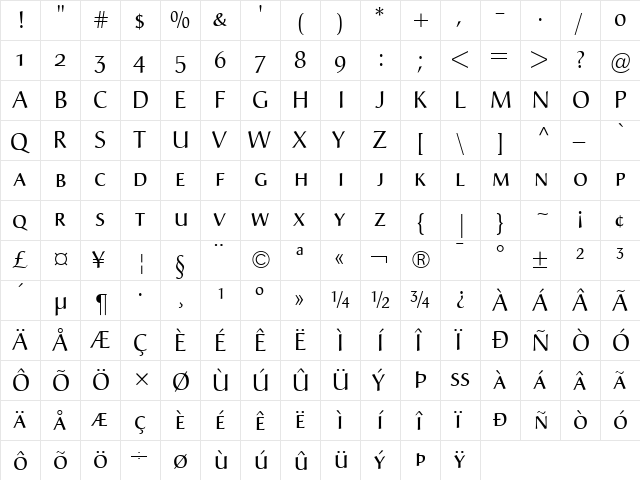
Christiana Regular
| Foundry | Adobe Systems Incorporated |
Design Context for Christiana Typeface
Christiana takes a measured approach to typography — its balanced proportions and neutral character make it a reliable workhorse for both digital and print work.